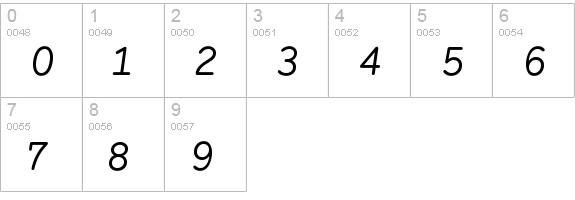
Maax Rounded Italic is a distinctive, italic variant in the Maax typeface family \xE2\x80\x94 well suited to design and typography projects.
Maax Rounded Italic font embodies a perfect blend of modern design and elegant curvature, making it a versatile choice for a wide range of projects. Its sleek and stylish appearance adds a touch of sophistication to any text, while the italicized slant imparts a sense of dynamism and movement. Whether used for headings, body text, or creative designs, Maax Rounded Italic font exudes a contemporary charm that captivates the eye. Best of all, this exceptional font is available for free download at FontsMarket.com, where users can easily access and integrate it into their creative endeavors without any cost. Embrace the seamless combination of form and function with Maax Rounded Italic font, and elevate your projects with its striking presence.